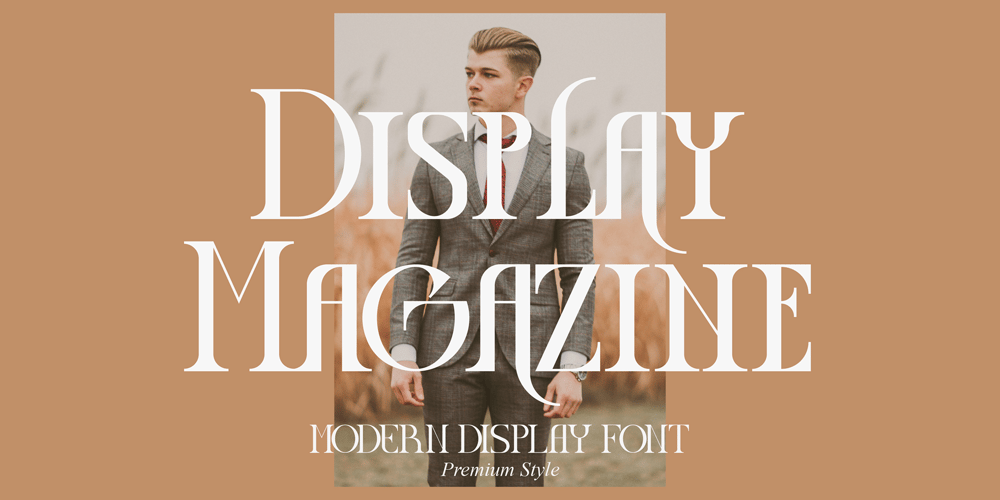
Display Magazine
Display Magazine font
Display Magazine Font Family was designed by Heru Utama Putra and published by Letterena Studios. Display Magazine contains 2 styles and family package options. Display Magazine is a bold, distinct and assertive serif font. This font is imposing and features uniquely shaped letters, and as a result, it will easily match a wide range of creations that require a distinct touch.